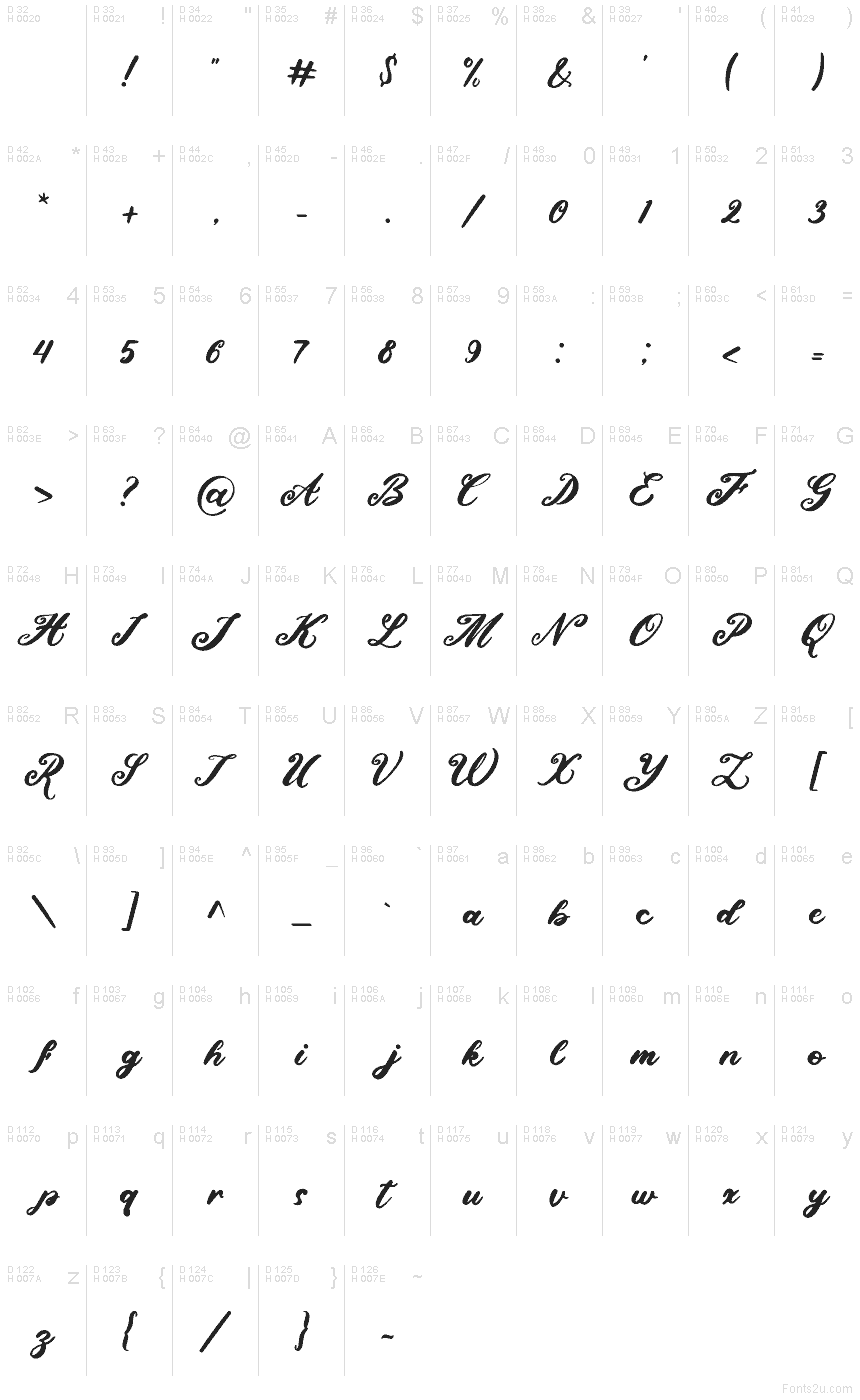
Dreamy Sakura font by erlosDESIGN is a free calligraphy script font. Its inky, high-contrast strokes sweep from thick to hairline with a gentle slant, forming soft petal-like terminals and smooth connections that read clearly at a glance. The rhythm feels compact yet airy-flourished enough to feel romantic, restrained enough to stay legible in real layouts.
Using Dreamy Sakura, headlines breathe on wedding invitations, save‑the‑date cards, boutique logos, beauty packaging, café signage, and heartfelt social posts. This free font shines on short phrases and names, where its rounded curves and steady baseline create confident wordmarks. Tip: pair it with a clean, light sans and give the script a touch of extra tracking when set large.